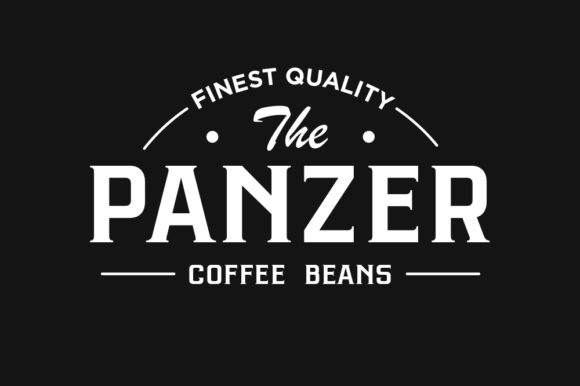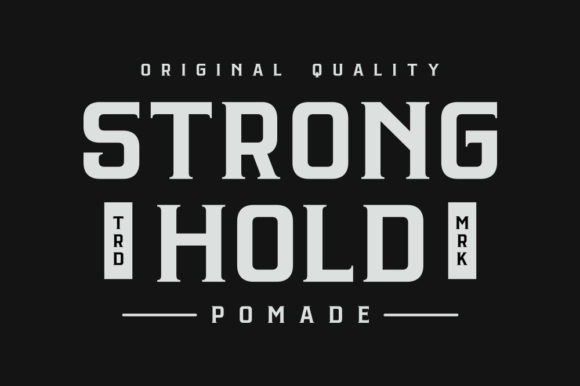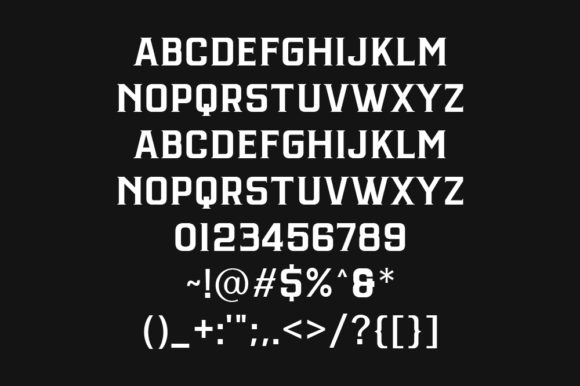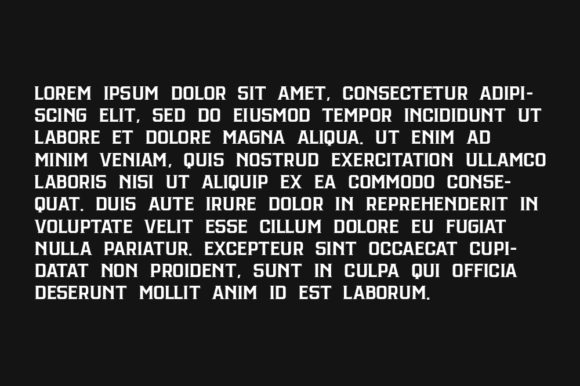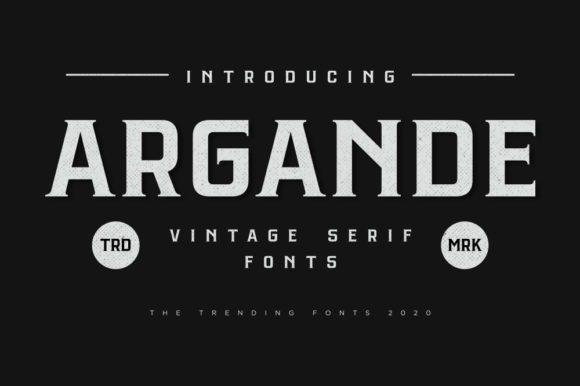
Discover the Timeless Charm of Argande Font: Elevate Your Designs with a Vintage Twist
In the realm of typography, few fonts manage to capture the essence of nostalgia and elegance as effortlessly as Argande. This distinct, elegant serif font has been making waves among designers and crafters alike, and for good reason. Argande exudes a playfully nostalgic vibe while delivering an incredible vintage aesthetic that’s perfect for adding a retro touch to any design idea you can think of.
The Unique Characteristics of Argande Font
So, what sets Argande apart from other serif fonts? For starters, its unique blend of classic and modern elements creates a truly distinctive look that’s both sophisticated and approachable. The font’s elegant lines, subtle flair, and expertly crafted serifs evoke a sense of timelessness, making it an excellent choice for projects that require a touch of vintage charm.
One of the standout features of Argande is its remarkable versatility. Whether you’re working on a logo, branding materials, packaging, or digital content, this font adapts seamlessly to various design contexts. Its readability and legibility ensure that your message is conveyed clearly, while its aesthetic appeal adds an extra layer of sophistication to your designs.
Adding a Retro Touch to Your Designs
Argande’s vintage-inspired design makes it an ideal choice for projects that require a nostalgic feel. Imagine incorporating this beautiful font into your designs to evoke memories of a bygone era. From classic advertisements and retro-style posters to handmade crafts and DIY projects, Argande can help you achieve that special retro touch that’s sure to captivate your audience.
Some popular design ideas that can benefit from Argande’s vintage charm include:
- Branding and packaging for vintage-inspired products, such as artisanal foods, craft beverages, or handmade goods
- Retro-style posters, flyers, and brochures for events, promotions, or product launches
- Logo designs and wordmarks that require a touch of elegance and sophistication
- Digital content, such as social media graphics, blog headers, and email newsletters, that need a unique and eye-catching flair
Why Designers and Crafters Love Argande Font
Argande has quickly become a favorite among designers and crafters due to its exceptional quality and versatility. Here are just a few reasons why:
- Ease of use: Argande is incredibly easy to read and works well in various design contexts, making it a go-to choice for designers and crafters of all skill levels.
- High-quality design: The font’s elegant lines, subtle flair, and expertly crafted serifs ensure a professional and polished look that’s hard to match.
- Flexibility: Argande can be used for both digital and print projects, making it an excellent addition to any design toolkit.
- Unique aesthetic: The font’s vintage-inspired design sets it apart from more traditional serif fonts, adding a touch of personality to any design.
Getting Started with Argande Font
Ready to experience the timeless charm of Argande for yourself? Here are some tips for getting started:
- Experiment with different sizes and styles: Argande works well in various sizes and styles, so don’t be afraid to experiment and find the perfect fit for your design.
- Pair with complementary fonts: Try pairing Argande with other fonts to create a unique and visually appealing typography scheme.
In conclusion, Argande is a distinct, elegant serif font that offers a unique blend of classic and modern elements. Its playfully nostalgic vibe and incredible vintage aesthetic make it an excellent choice for designers and crafters looking to add a retro touch to their designs. With its exceptional quality, versatility, and ease of use, Argande is sure to become a staple in any design toolkit.